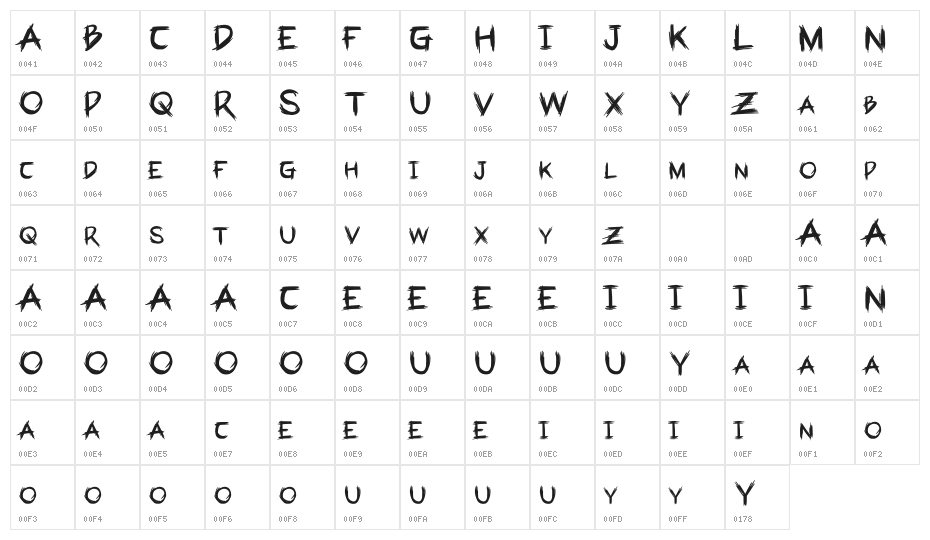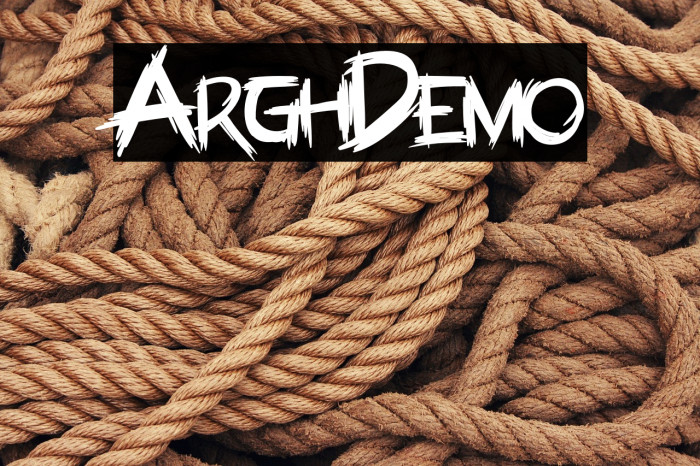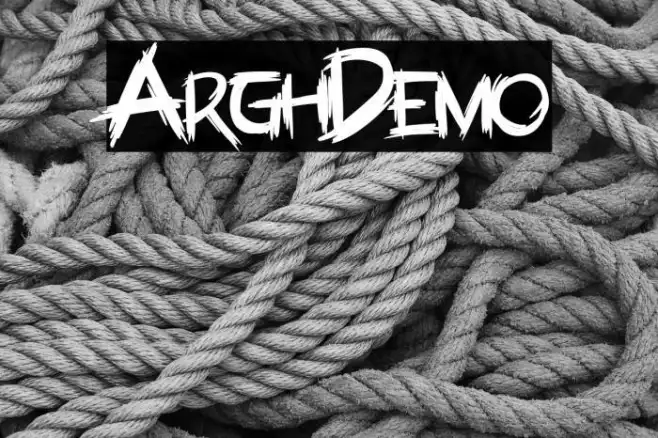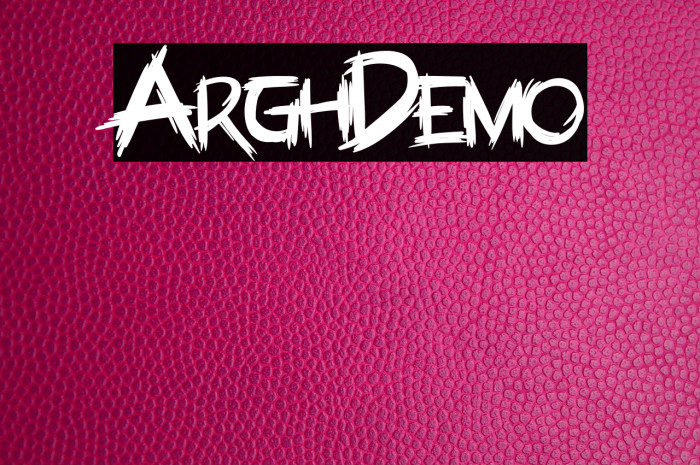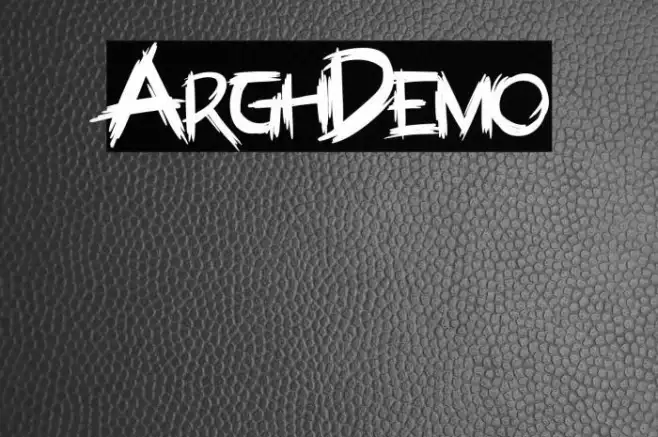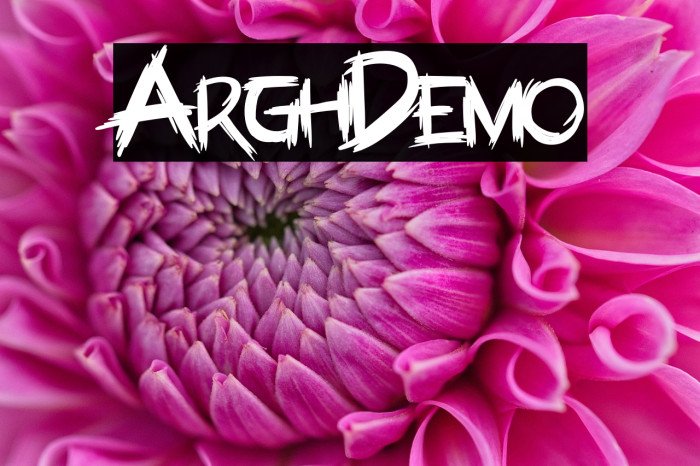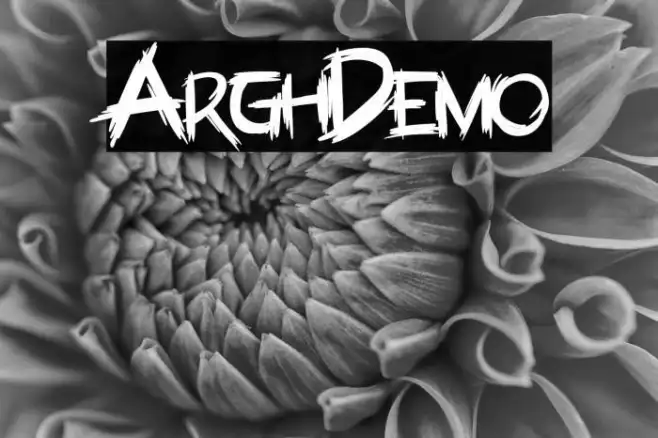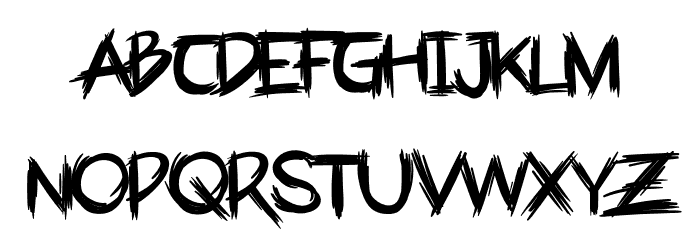
ArghDemo Font
ArghDemo Description
This font features a bold and dynamic style with a rough, hand-drawn appearance. The letters are characterized by sharp edges and irregular strokes, giving it an energetic and rebellious look. The uppercase letters are prominent and attention-grabbing, while the lowercase letters maintain the same edgy style. The font lacks uniformity, with varying stroke thicknesses and a slightly chaotic arrangement, which adds to its unique charm. It is ideal for projects that require a strong, impactful visual statement, such as posters, album covers, or any creative design that seeks to convey a sense of intensity and movement.
| Proposed Projects | Ideal for posters, album covers, and creative designs needing a strong visual impact. |